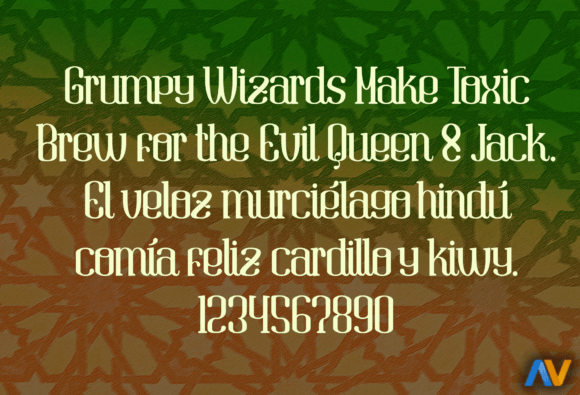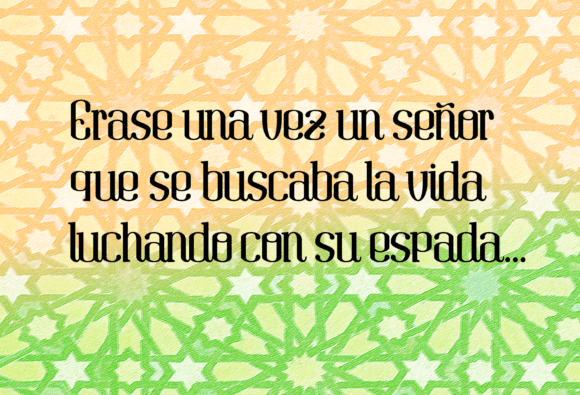
Discover the Elegance of Gandula Font: A Perfect Blend of Modern and Classic
In the world of typography, few fonts manage to strike a balance between modern appeal and classic elegance. However, Gandula Font is an exception, offering a stunning blend of both. This versatile typeface has been designed to transcend boundaries, making it an ideal choice for designers and crafters looking for a font that can cater to a globally diverse audience.
Multilanguage Support for Global Reach
One of the standout features of Gandula Font is its multilanguage support. In today’s interconnected world, having a font that can communicate effectively across different languages is a significant advantage. Whether you’re working on a project that requires support for Western European, Central European, or even languages like Turkish, Polish, or Croatian, Gandula has got you covered. This extensive language support ensures that your message can reach a broader audience without compromising on style or legibility.
Beyond Basic Characters: Web Fonts and Vectors
Gandula Font goes beyond just offering basic characters. It also includes web fonts and vectors, significantly expanding its usability. For web designers, this means that Gandula can be seamlessly integrated into websites, ensuring consistent and elegant typography across all pages. Graphic artists, on the other hand, will appreciate the vector formats that allow for scalable designs without any loss of quality. Whether you’re designing a logo, a brochure, or a website, Gandula provides the flexibility and reliability you need.
Aesthetic Appeal and Functional Versatility
At the heart of Gandula Font is a captivating allure that comes from its sophisticated design. The classic serif elements bring a touch of elegance and tradition, while the modern twists ensure that it remains fresh and appealing. This blend of classic and modern features makes Gandula highly versatile, suitable for a wide range of applications. From high-end brand logos to elegant wedding invitations, and from professional business reports to creative digital blogs, Gandula can adapt to any design requirement with ease.
Why Choose Gandula Font?
So, why should designers and crafters choose Gandula Font for their projects? Here are a few compelling reasons:
• Elegant Design: Gandula offers a beautiful, sophisticated design that adds a touch of class to any project.
• Multilanguage Support: Communicate effectively with a global audience using a font that supports multiple languages.
• Versatility: With its comprehensive set of characters, web fonts, and vectors, Gandula can be used across various mediums, from print to digital.
• Easy Integration: Seamlessly integrate Gandula into your web designs or graphic projects without any hassle.
Gandula Font represents a perfect marriage of modern appeal and classic serif elegance. Its multilanguage support, inclusion of web fonts and vectors, and captivating design make it an invaluable asset for designers and crafters. Whether you’re looking to create a visually stunning website, an elegant brand logo, or any other design project, Gandula offers the sophistication and versatility you need. Experience the allure of Gandula and elevate your designs to new heights of elegance and functionality.
With Gandula Font, you’re not just choosing a typeface; you’re embracing a design philosophy that combines beauty with functionality. Join the ranks of designers and crafters who have already discovered the captivating allure of Gandula and see how it can transform your creative projects.